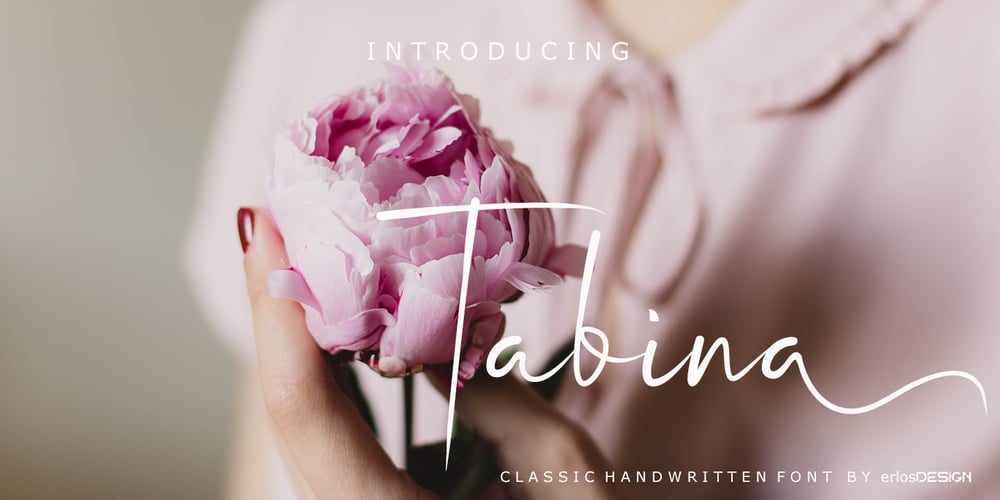
Tabina Font Family was designed by Erlangga Suherman and published by ErlosDesign. Tabina contains 1 styles and family package options. Tabina is a sweet, romantic and timeless handwritten font. It looks stunning on wedding invitations,thank you cards, quotes, greeting cards, logos, business cards and every other design which needs a handwritten touch.It features a varying baseline, smoothlines, gorgeous glyphs and stunning alternates.